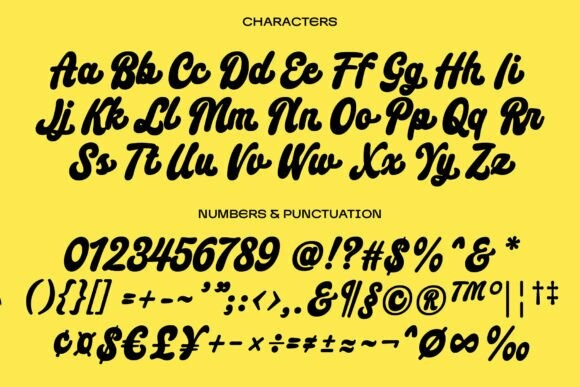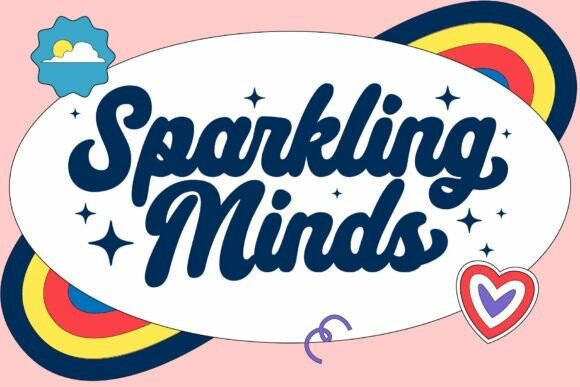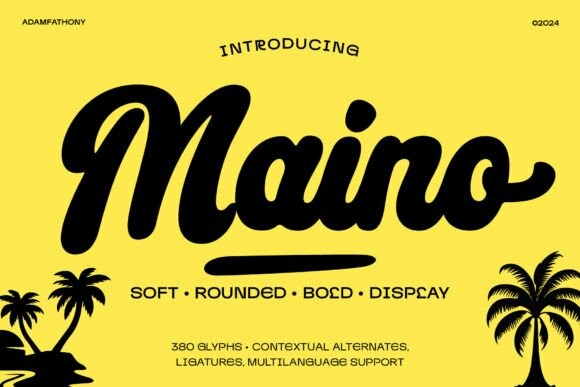
Maino Font
Maino Font, where script elegance meets playful charm. This font exudes a delightful blend of softness and boldness, with rounded edges that add a touch of whimsy to any design. Its flawless curves and casual strokes make Maino both inviting and versatile, perfect for projects that demand a cute and approachable vibe.